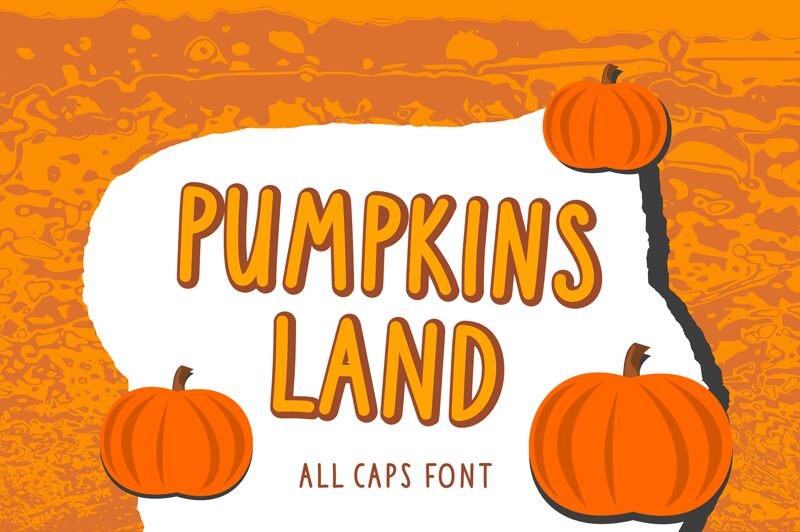
Pumpkins Land is a captivating handwritten typeface crafted by Glamey Co. This condensed, all-caps font exudes a delightful, whimsical charm with its skinny, tall aesthetic. The organic, handcrafted lines and subtle imperfections lend the design a warm, inviting character, evoking a sense of playfulness and approachability.
Pumpkins Land's unique typographic style makes it an excellent choice for a wide range of design applications. From social media posts and branding to product packaging, quotes, logos, and beyond, this versatile font can breathe life into any creative project, adding a touch of playful sophistication that is sure to captivate the audience.
Pumpkinsland is simple skinny tall all caps typeface. It's crafted looks with handwritten feel, perfect for creating social media posts, branding, quotes, logos, packaging, mug, totes, t-shirt, poster, sticker, key chain or anything for your fun any project.